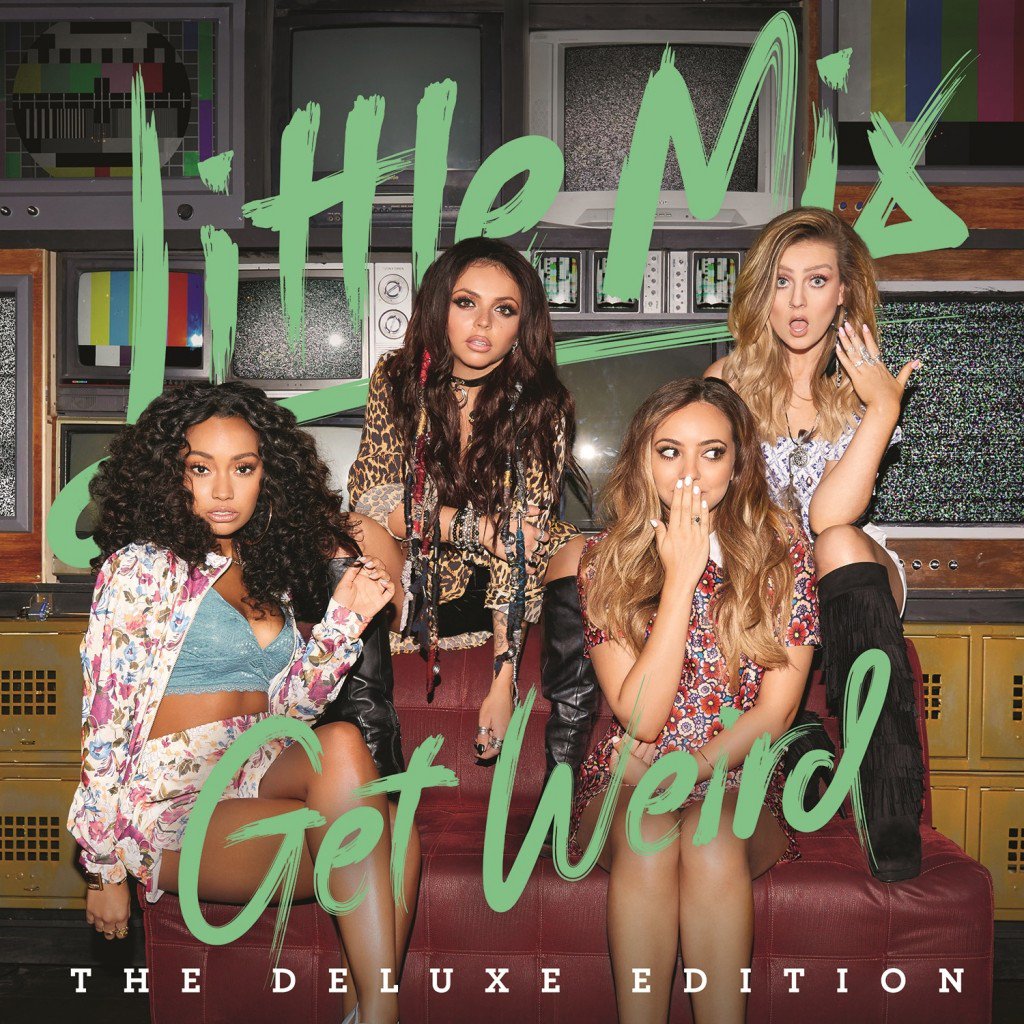
Get Weird Font
Fonts in UseGet Weird is the third studio album by British girl group Little Mix, released in 2015. It features upbeat pop and dance tracks with empowering lyrics and showcases the group's vocal range and harmonies.
The title font on the cover art is most probably a custom font. However, a font inspired by the brush script of Get Weird was created by angeldavidcs, a user on DeviantArt, which can be viewed and purchased here.
The slab serif font used at the bottom of the artwork seems to be Archer from Hoefler&Co.